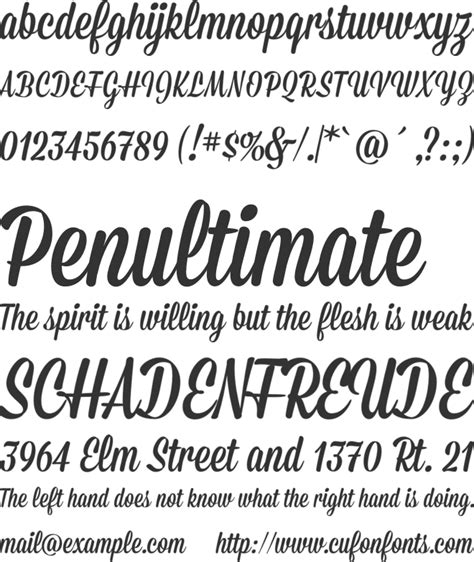
Mission Script Font. Web mission script is a font designed by james t. Web introducing a cool and elegant visual typeface that is mission script font, it has been designed and released by james t.
How about 20,000+ commercial fonts with unlimited downloads download now. Web mission script is a font designed by james t. Web introducing a cool and elegant visual typeface that is mission script font, it has been designed and released by james t. Edmondson, a student at the royal academy of art in the hague, netherlands.
Edmondson, a student at the royal academy of art in the hague, netherlands. Web introducing a cool and elegant visual typeface that is mission script font, it has been designed and released by james t. Edmondson, a student at the royal academy of art in the hague, netherlands. How about 20,000+ commercial fonts with unlimited downloads download now. Web mission script is a font designed by james t.